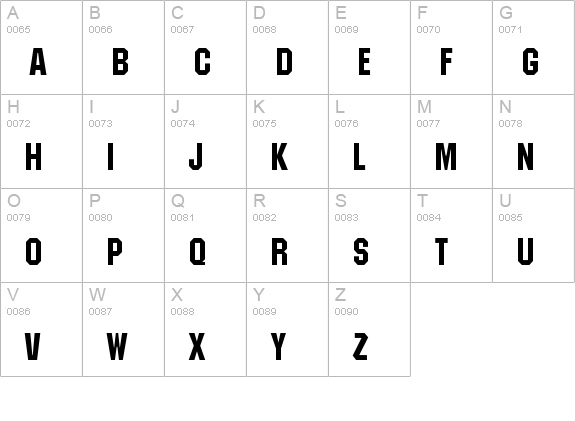
MachineEF-Regular Font Details
MachineEF-Regular is the standard, neutral variant in the MachineEF typeface family \xE2\x80\x94 well suited to general body text, paragraphs, and standard typographic work.
MachineEF-Regular is a stylish and versatile font that exudes a sense of modernity and professionalism. With its clean and crisp lines, this typeface is perfect for a wide range of design projects, from corporate branding to editorial layouts. The font's bold and well-defined letterforms make it highly legible, ensuring that your message will be effectively communicated to your audience. Its sleek and contemporary appearance adds a touch of sophistication to any design, making it a popular choice for designers looking to make a lasting impression. One of the most enticing aspects of MachineEF-Regular is that it is available for free. Yes, you read that right! This amazing font is freely available to download at FontsMarket.com. This means that you can add this exceptional typeface to your collection without breaking the bank. Whether you are a professional designer or a hobbyist, MachineEF-Regular offers you the opportunity to elevate your design projects with its unique and eye-catching aesthetic. So why wait? Head over to FontsMarket.com now and download MachineEF-Regular for free. Unleash your creativity and take your designs to new heights with this remarkable font.